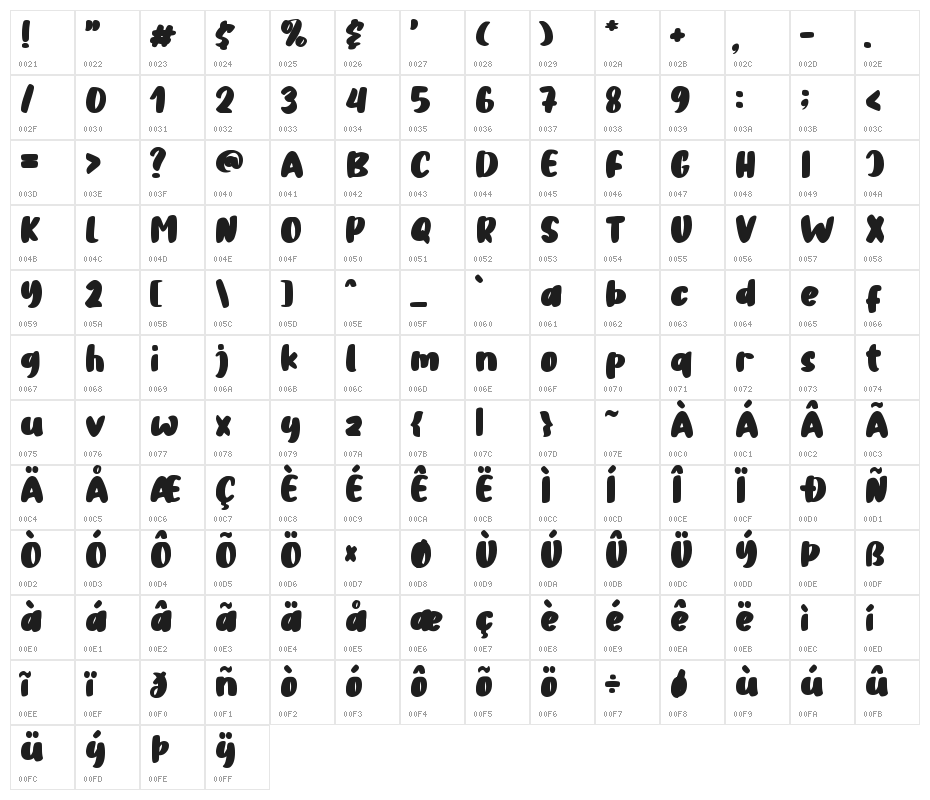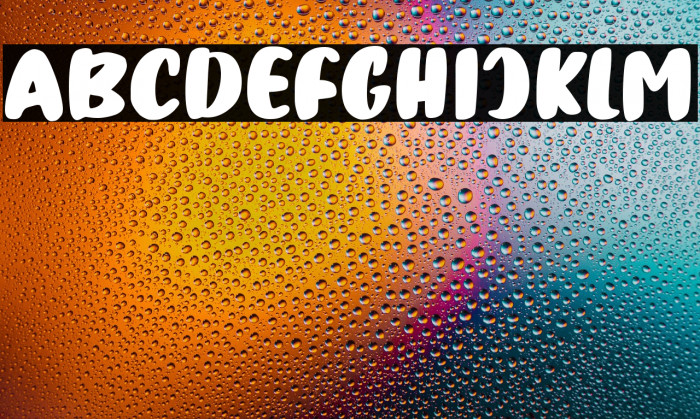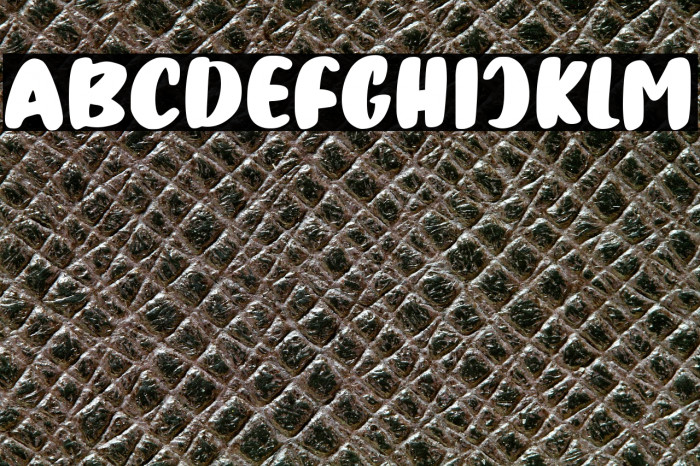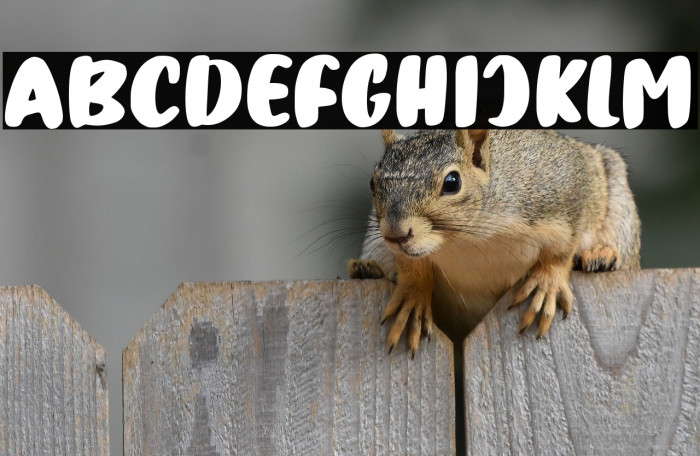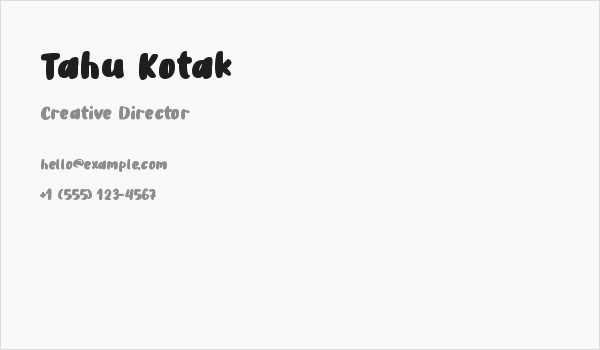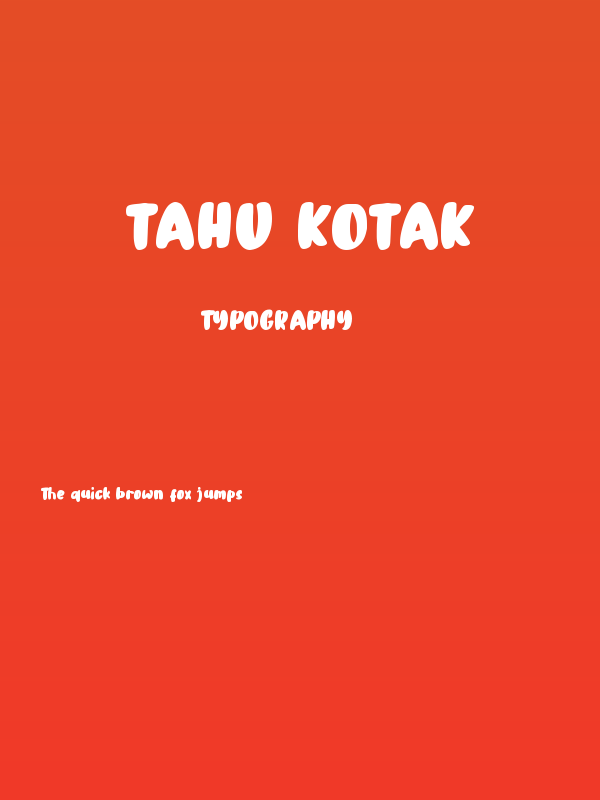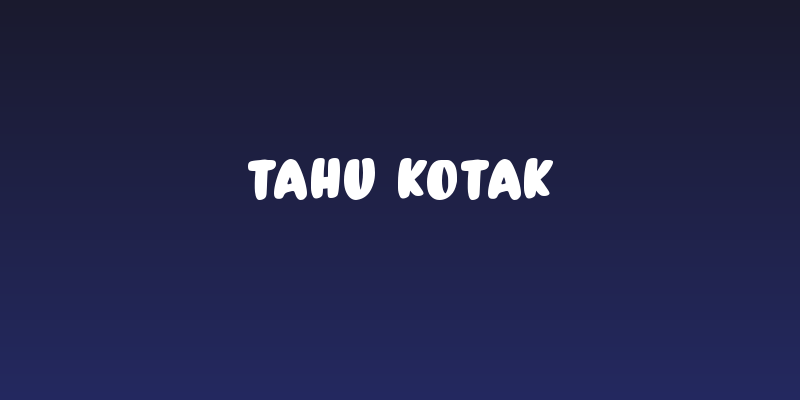
Tahu Kotak Font
Tahu Kotak Description
This font features a bold, playful style with rounded edges and a thick, consistent stroke width. The characters are designed with a bubbly appearance, giving them a friendly and approachable feel. The uppercase and lowercase letters maintain a uniform thickness, contributing to a cohesive look across the alphabet. Numbers and special characters follow the same design principles, ensuring a harmonious appearance throughout. The font's overall aesthetic is casual and fun, making it suitable for projects that require a lively and informal touch.
| Overall Style | Playful, Casual |
| Proposed Projects | Ideal for children's books, playful branding, party invitations, and casual social media graphics. |